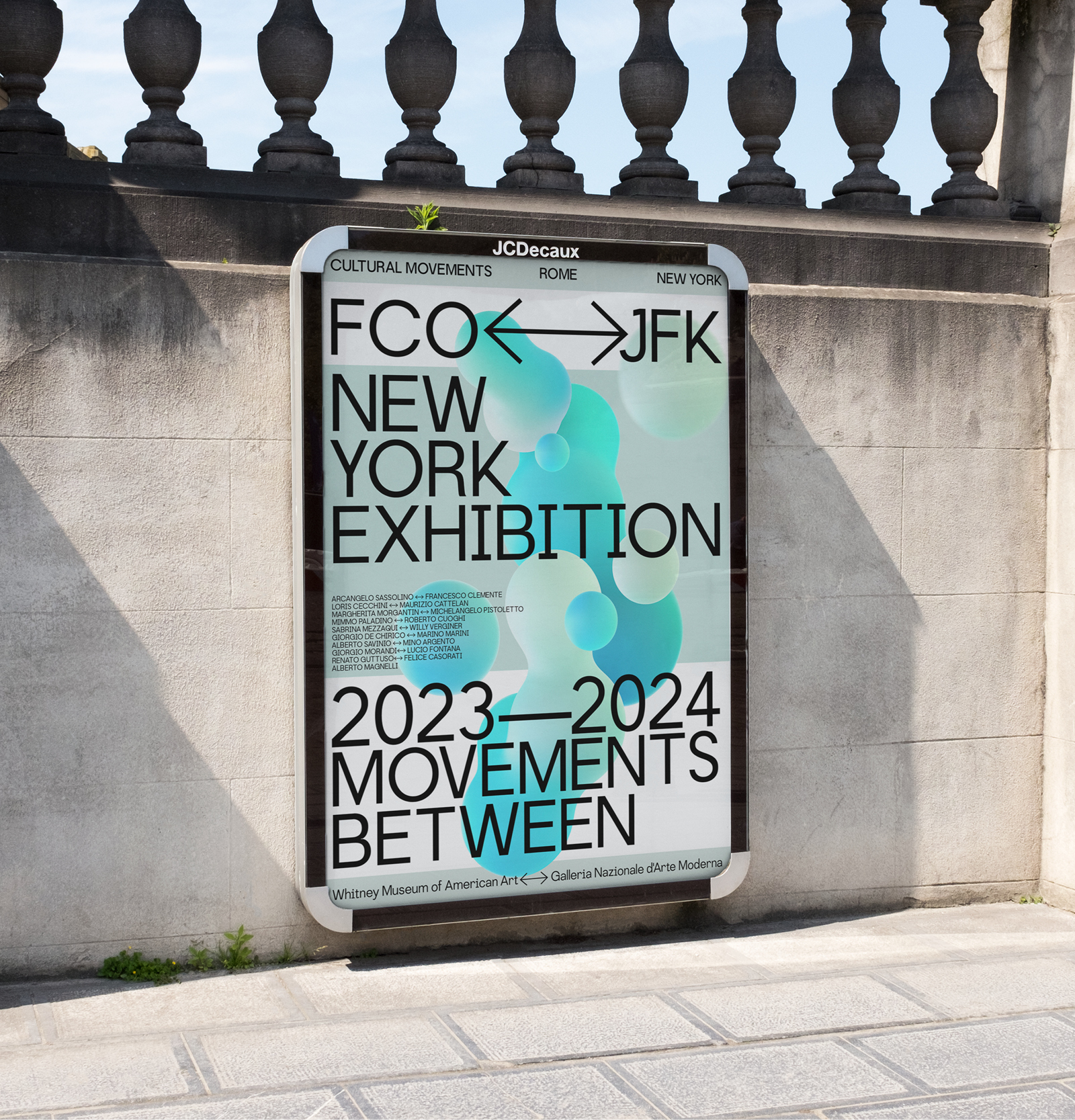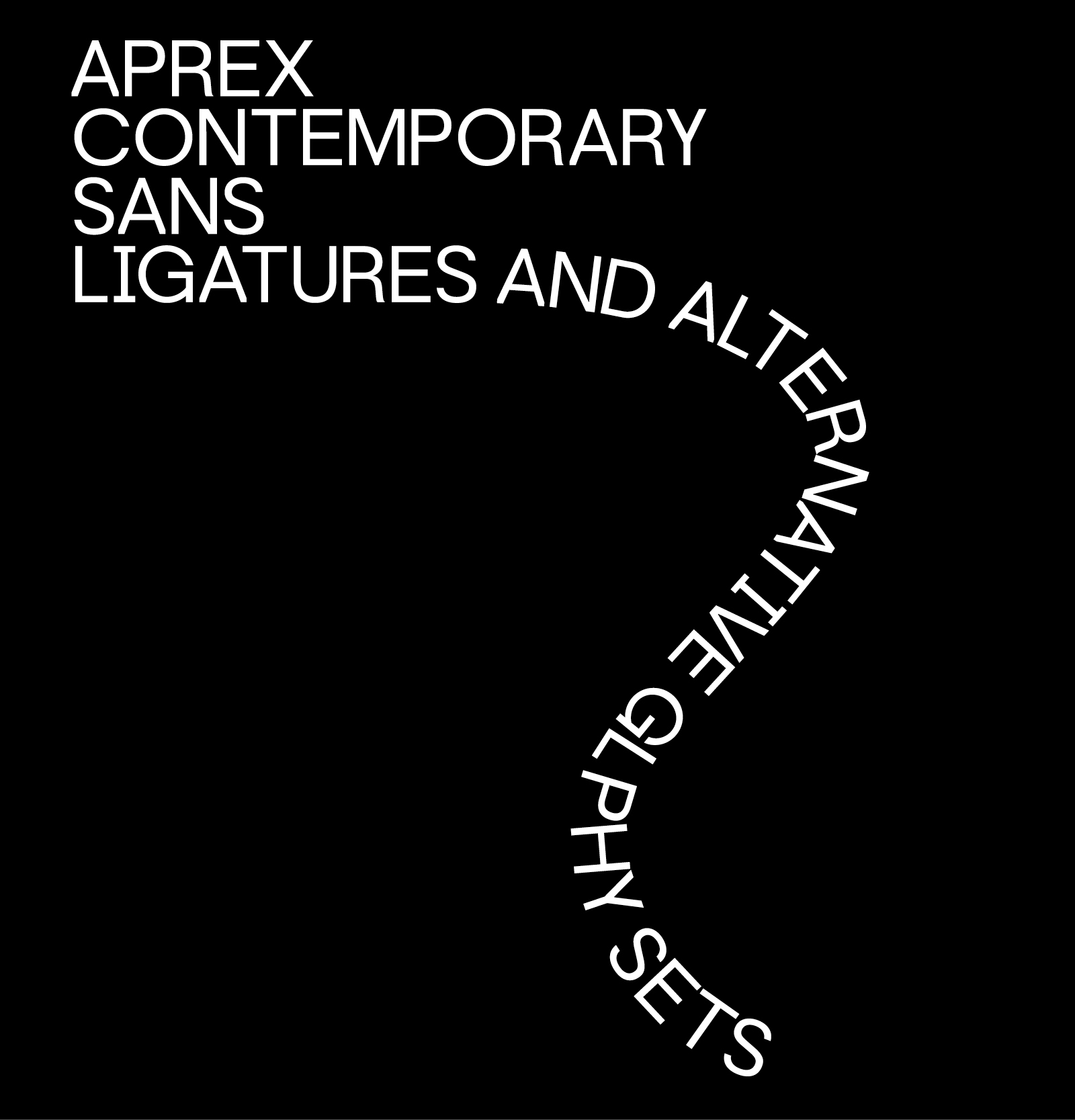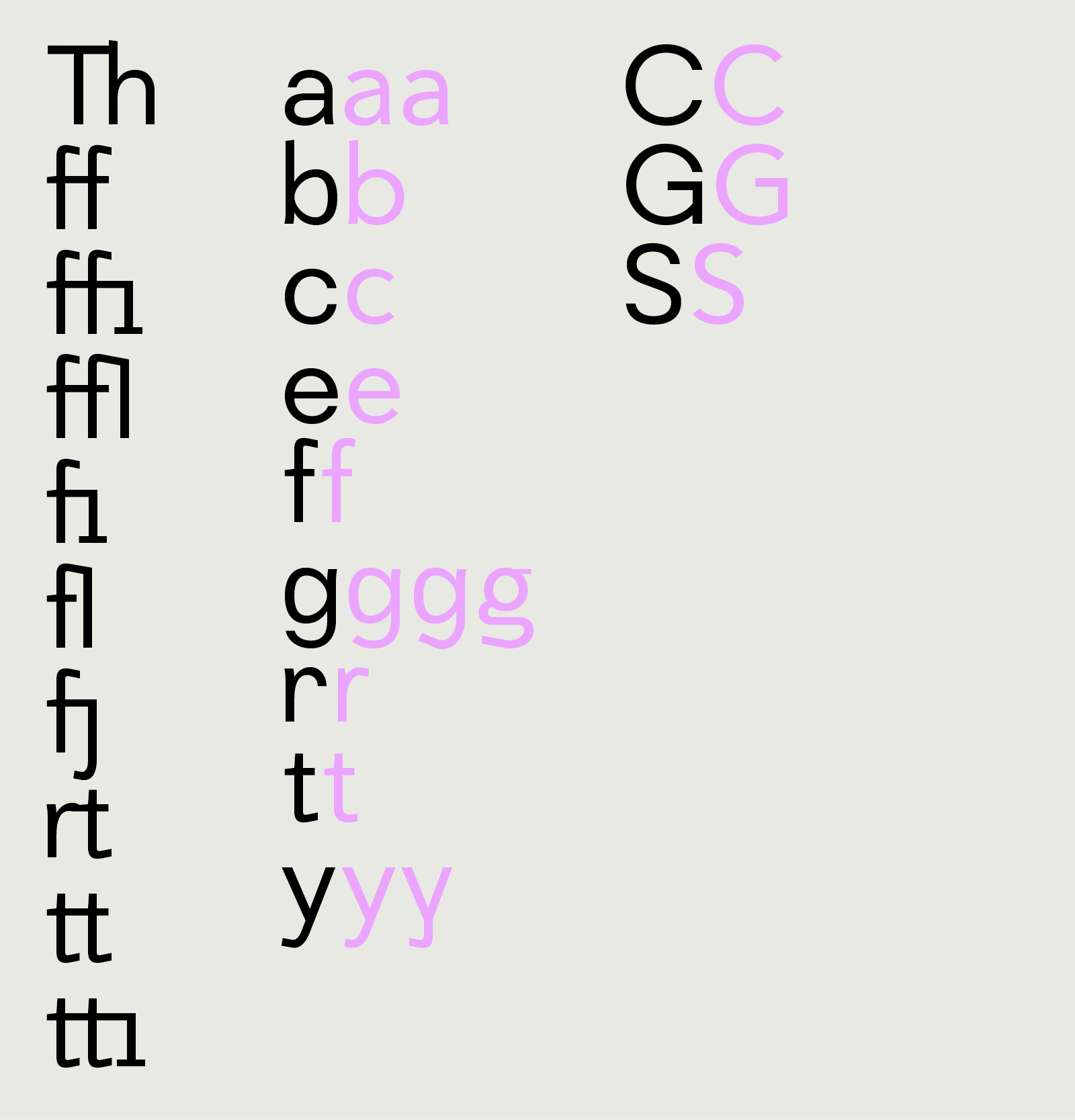
Aprex Sans is a contemporary sans-serif typeface that skillfully blends minimalist aesthetics with expressive detail. Engineered for clarity and versatility, it features open apertures and generously spaced counters that create a natural rhythm and a breathable texture on the page or screen. The result is a type family that feels modern and refined, yet warm and approachable.
Rooted in the legacy of mid-century humanist and grotesque designs, Aprex Sans pays tribute to the classics while confidently stepping into the present. Its architecture combines the neutrality of geometric construction with nuanced quirks that reveal themselves on closer inspection—angular joints between curves and stems, subtle contrast modulation, and consistent stroke weights that create a sense of structure without rigidity.
Legibility was a guiding principle in the development of Aprex Sans. From Light to Bold, each of its six weights is optimized for clarity across a wide range of sizes and environments. Whether used in dense text settings or commanding display headlines, the typeface retains excellent contrast between figure and ground, ensuring a smooth reading experience in both print and digital contexts.
Designed to be functional yet expressive, Aprex Sans offers the kind of typographic stability and personality that designers rely on for long-term, multi-platform use. The consistent rhythm of its letterforms enables clean alignment and easy hierarchy, while the controlled character width helps maintain even texture across lines of text.
To expand its range, Aprex Sans includes a thoughtfully curated set of OpenType features and stylistic alternates. These options offer alternate forms for key characters—such as a single-storey ‘a’ or more geometric interpretations of ‘g’ and ‘y’—providing the flexibility to match different tone-of-voice requirements within a brand or publication. Additional features include alternate punctuation, unique ampersands, and carefully crafted symbols that make Aprex Sans a capable workhorse for editorial, branding, signage, and interface design.
With broad Latin-script language support and meticulous attention to typographic detail, Aprex Sans is built for international reach and reliable performance. Whether creating a minimalist brand identity, designing an editorial system, or shaping a digital product interface, Aprex Sans delivers a clean, confident voice that adapts beautifully to a wide range of creative challenges.
Confident, versatile, and refreshingly honest, Aprex Sans is more than a tool—it’s a typographic companion designed to work hard and look good doing it.